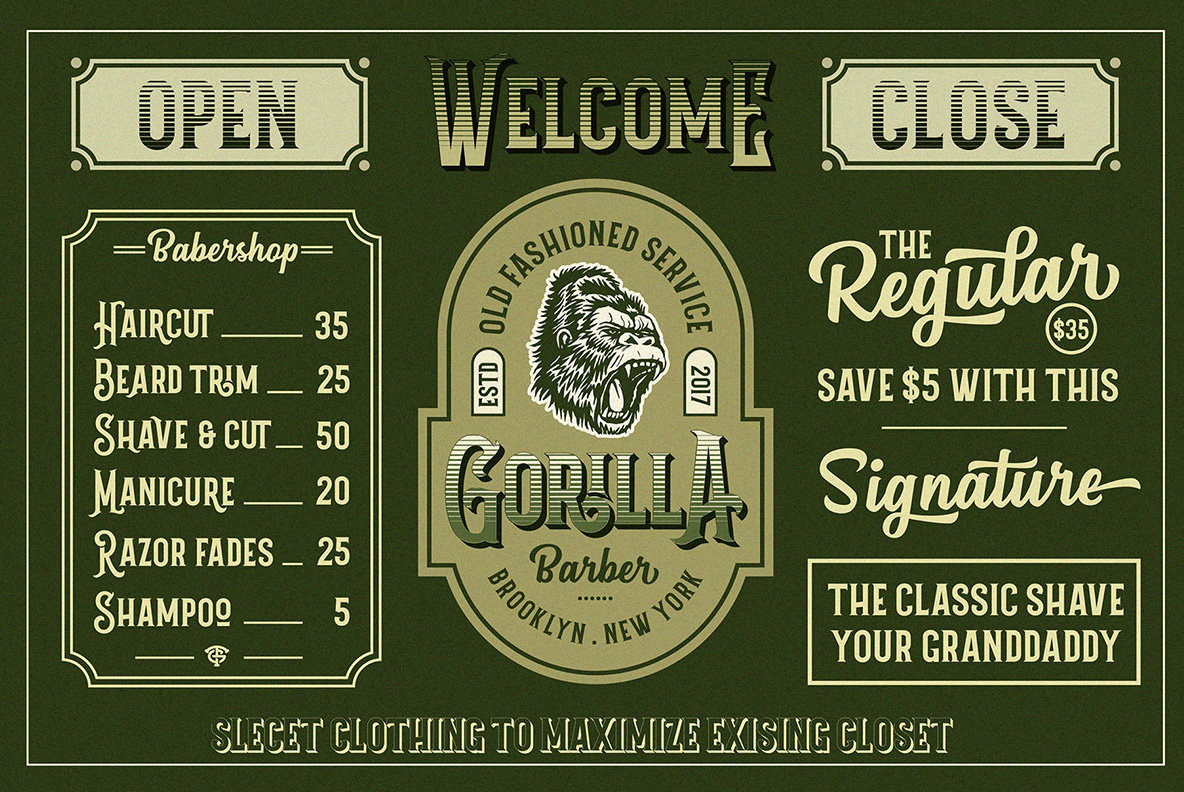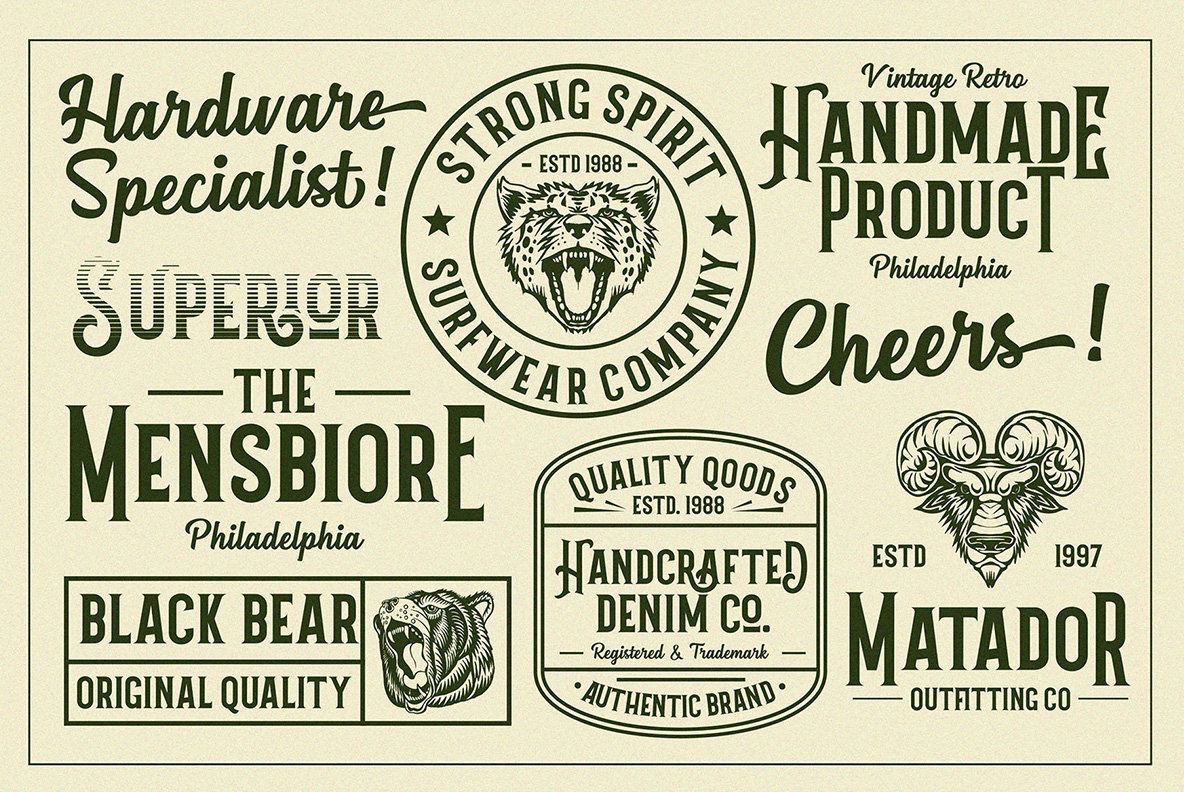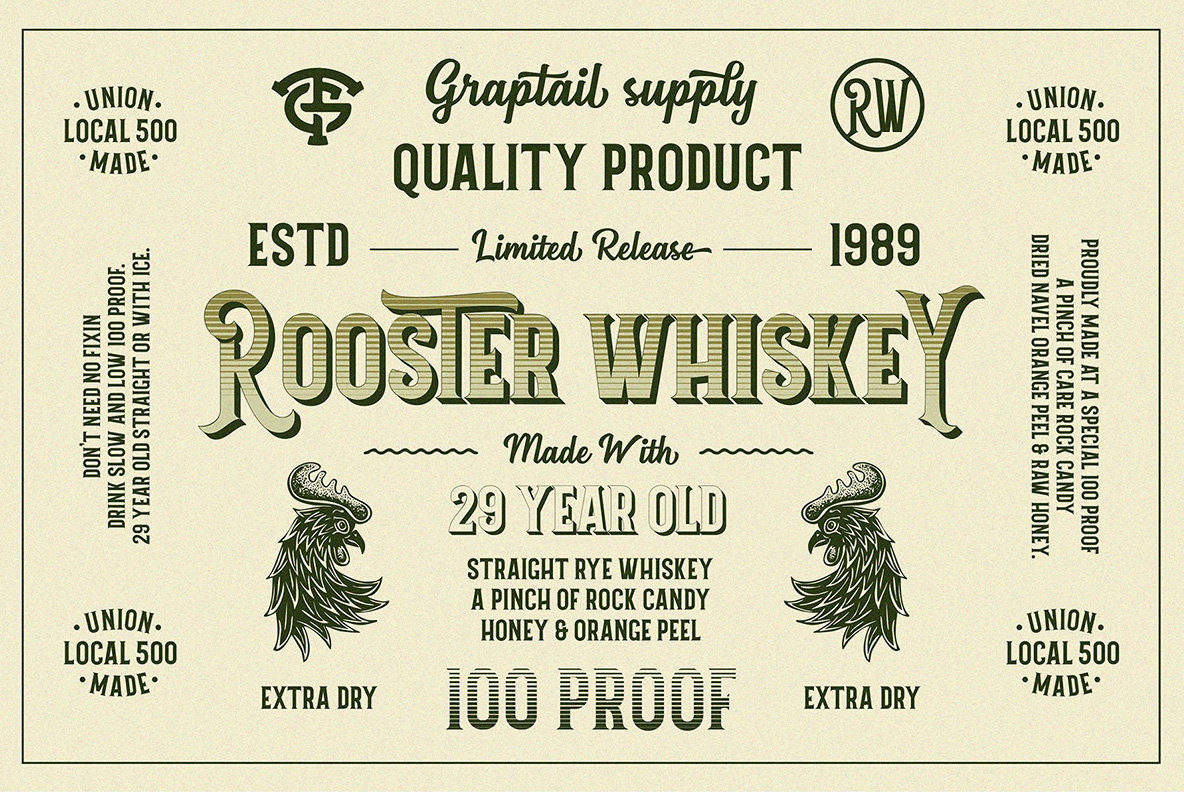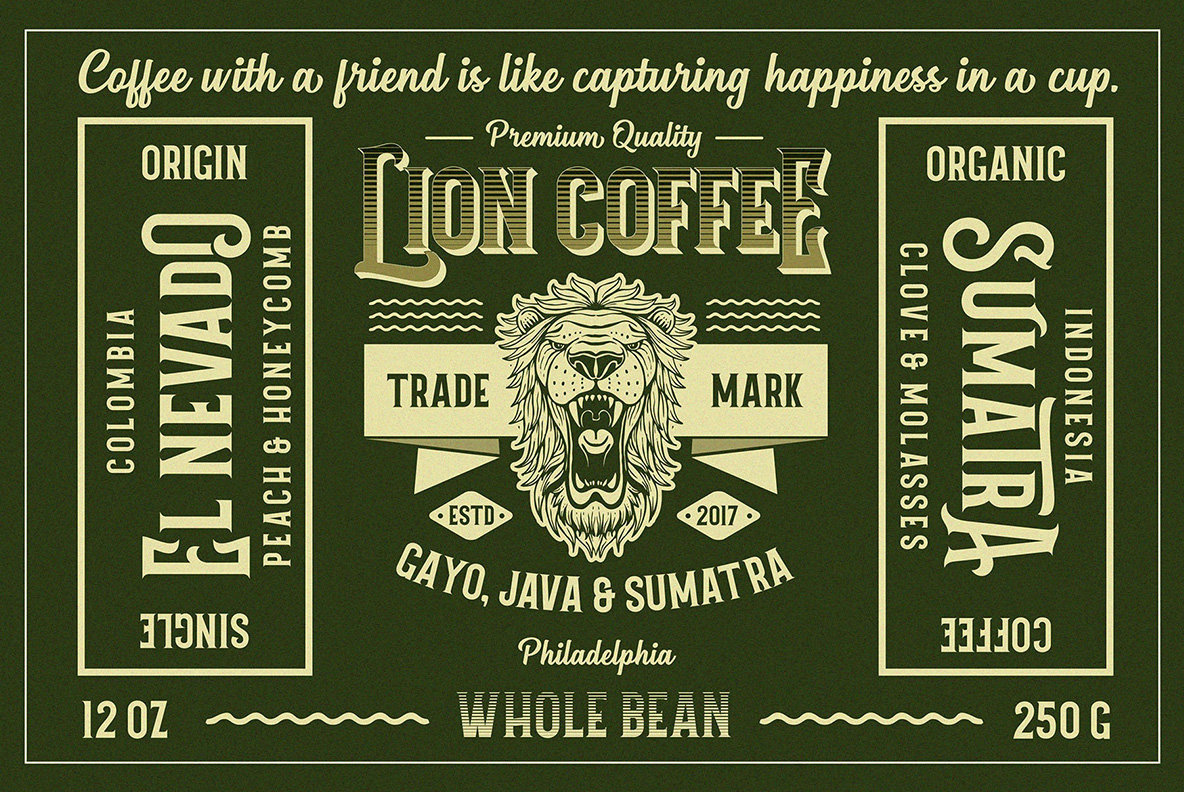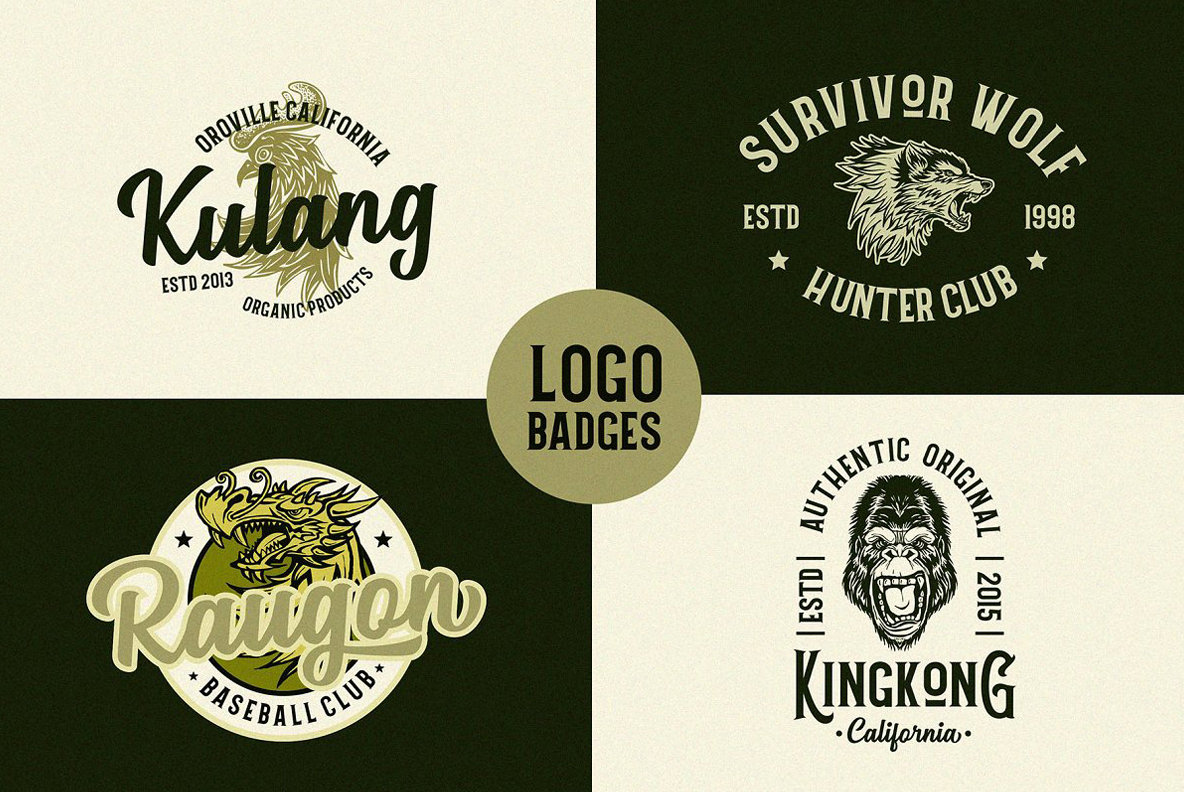
Grantmouth Font
Delve into the creative world of design with Grantmouth, a hand-drawn display font that captures the essence of vintage labels. Perfectly suited for graphic designers aiming for a unique and nostalgic look, Grantmouth combines cool display aesthetics with script and vector influences, making it an ideal choice for various design projects. Envision your projects coming to life with letterheads, posters, and apparel designs that distinguish themselves with Grantmouth's distinctive style. The font's versatility extends to logotypes and labels, ensuring your creations are as memorable as they are visually stunning.Grantmouth: Handcrafted Display Font Inspired by Classic Labels